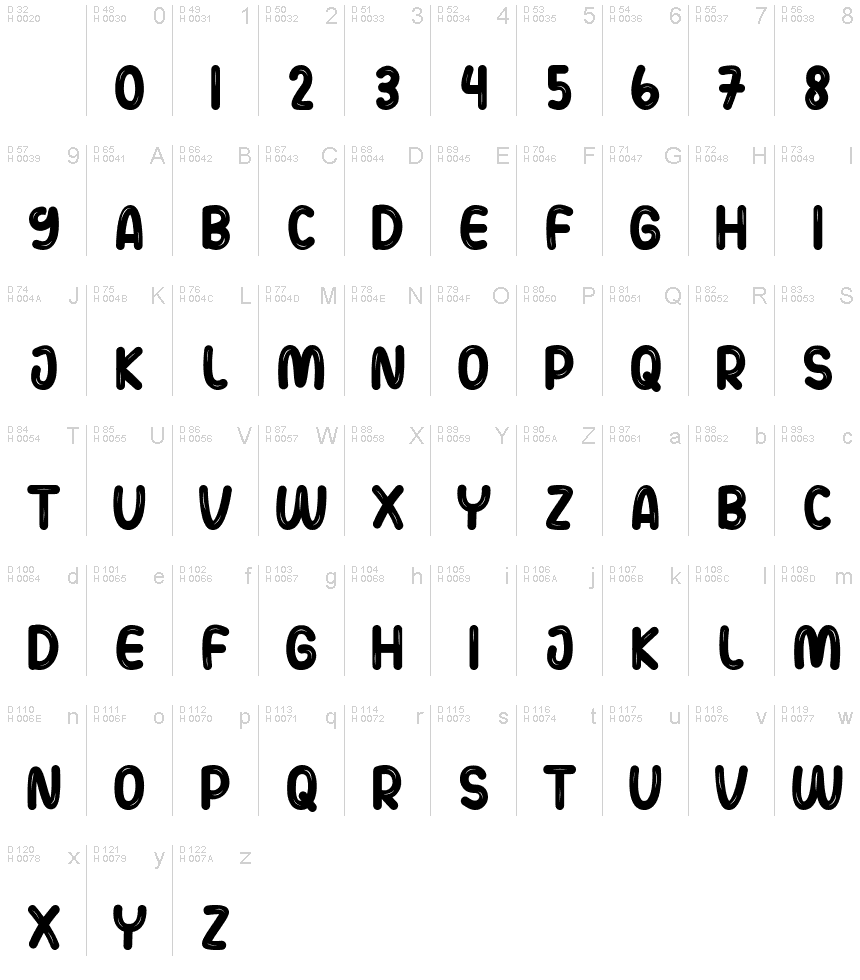
Bualons
Bualons, designed by Share Font, is a captivating display font with a playful cartoon style. Its semi-bold weight adds a touch of boldness to your designs, making them stand out effortlessly.
With its charming and whimsical appearance, Bualons is perfect for children's books, animated movies, toy packaging, and birthday party invitations. This font brings joy and excitement to your projects, creating a fun and memorable experience for viewers.
Let Bualons inject some liveliness into your designs and unleash your creativity in the most delightful way possible.